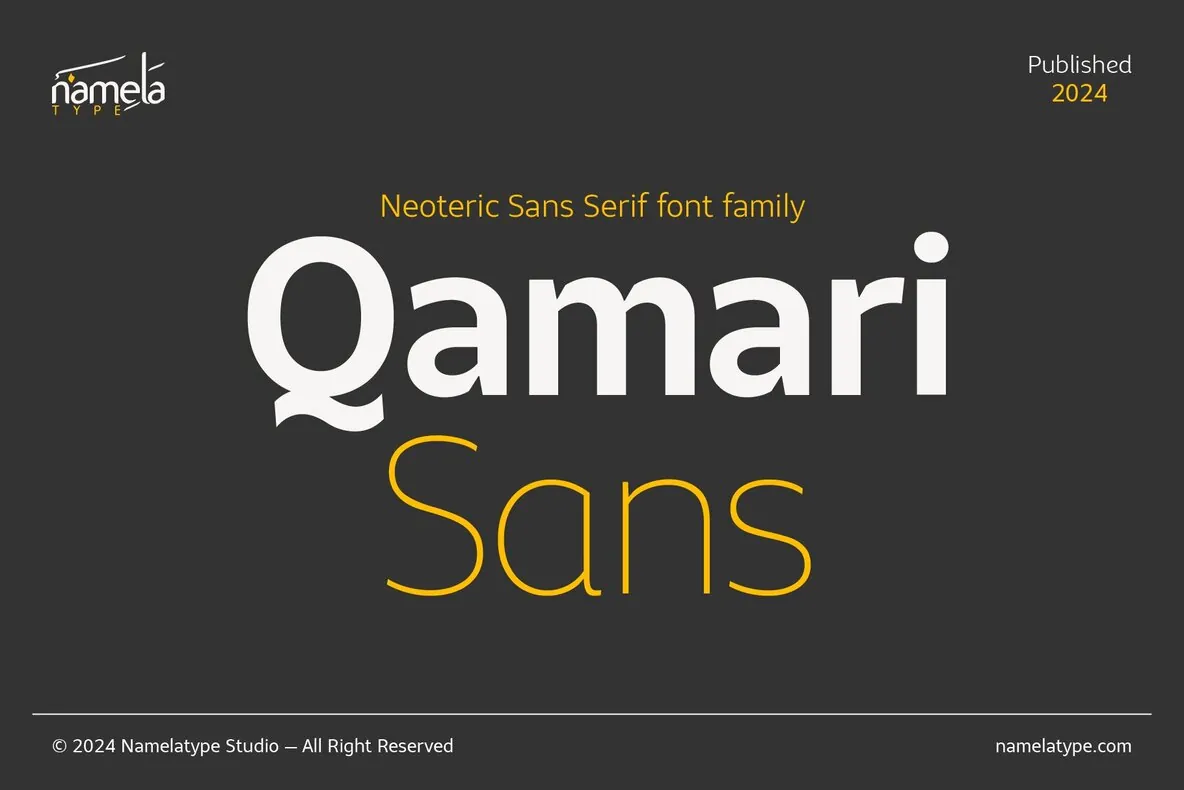
Qamari Sans is a distinctive typeface, recognized for its unique cut-ins ink trap feature. This innovative design enhances legibility by optimizing the flow of ink within each character, ensuring crisp and sharp letterforms even at smaller sizes. The cut-ins provide a subtle sophistication, distinguishing it from other sans serif fonts. Its thoughtful design makes it a versatile choice for various applications, standing out with its clean and modern lines.
Available in nine meticulously crafted weights, from Thin to Black, Qamari Sans offers flexibility for different design needs. An oblique set complements these weights, providing designers with additional creative possibilities. The font’s timeless elegance makes it an ideal choice for diverse projects, ensuring legibility and aesthetic appeal across different contexts.